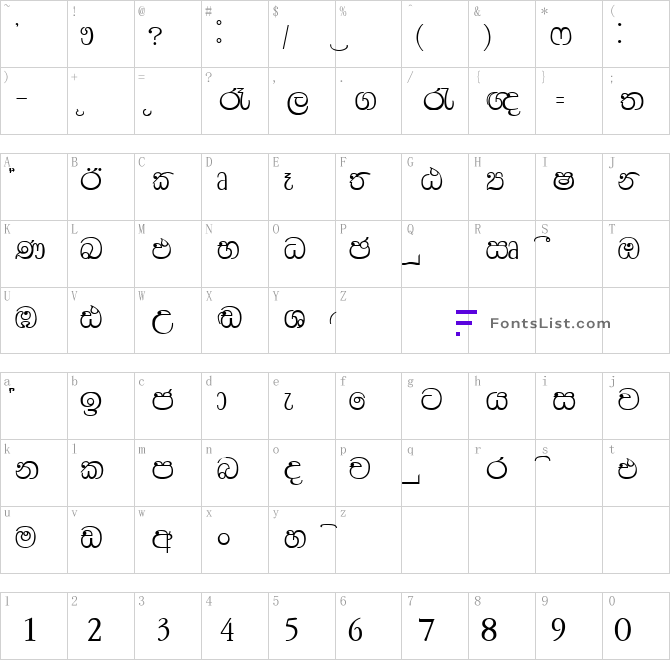
- Font Name:AMS Bindu
AMS-Bindu.ttf is a very beautiful artistic font, AMS-Bindu.ttf is widely used in the design and printing of various books and pictures,AMS-Bindu.ttf has a strong visual impact,AMS-Bindu.ttf is a commonly used font in newspapers, magazines and books, and is used in posters, e-commerce Poster design, store design, logo design, font design and other fields.AMS-Bindu.